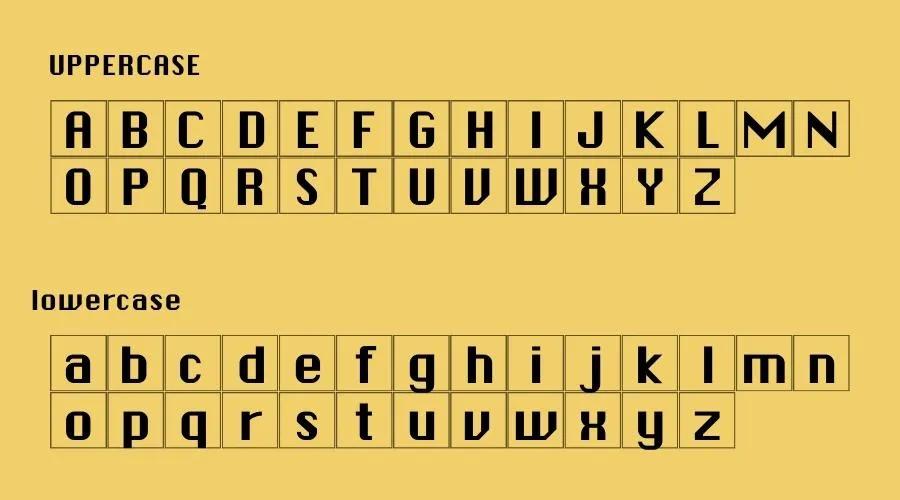
Chicago Font
About Chicago Font
The Chicago Font was developed by a famous graphic designer Susan Kare and is under the category of the sans serif texture family. It was invented for the apple computer and mostly utilize for Macintosh operating system and we are providing a free version.
The font includes different alternative surfaces and ligatures that give it a lovely, stunning look. It contains multiple types of weights (regular, bold, italic) and styles.
This texture does not need you to utilize any detailed texture, you may choose any readable texture. It is mostly utilized with Helvetica Font and makes attractive layouts.